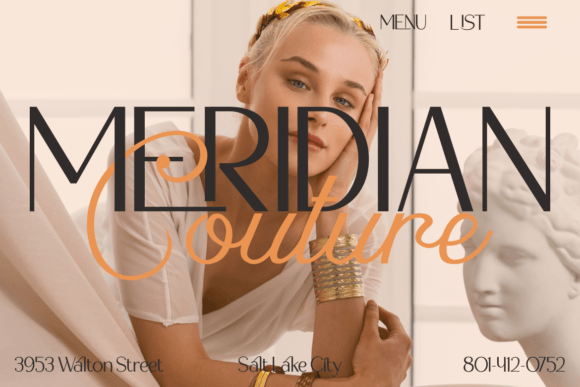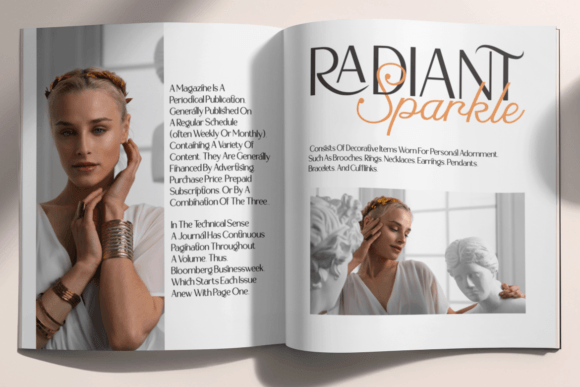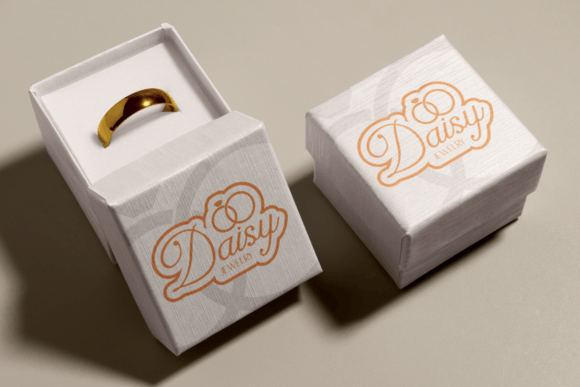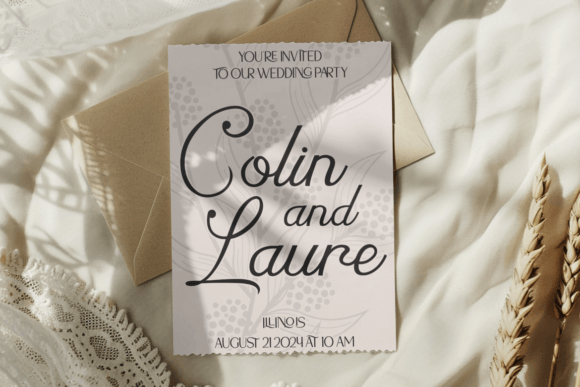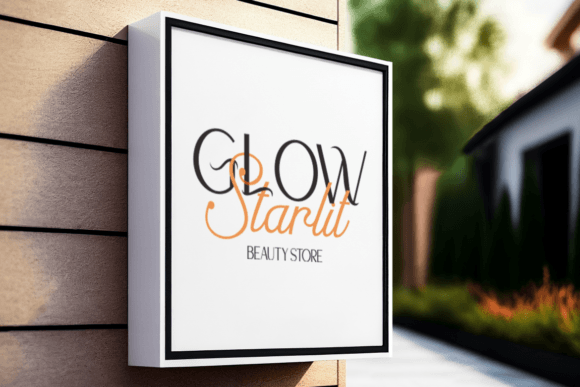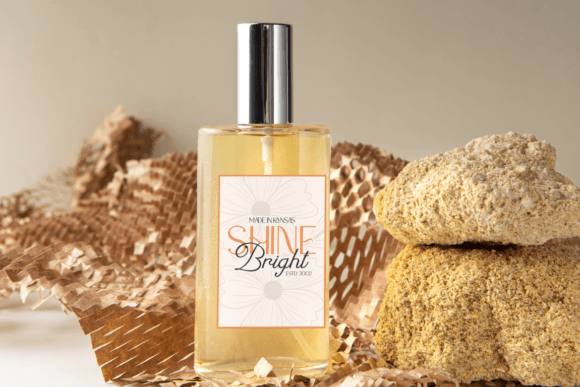
Introduction to Greatness Culture Font
Introducing Greatness Culture, a refined and versatile stylish duo font that blends elegance and modern flair.
This luxurious display font is the perfect combination of a sleek sans-serif and a flowing script, offering a sophisticated aesthetic ideal for high-end designs With its smooth, contemporary lines, Greatness Culture adds a touch of class to logos, branding, and upscale packaging.
Key Features of Greatness Culture Font
Why Choose Greatness Culture Font?
Greatness Culture Font offers exceptional quality and versatility, making it a valuable addition to your design toolkit. Whether you’re creating for personal projects or commercial use, Greatness Culture Font delivers professional results.